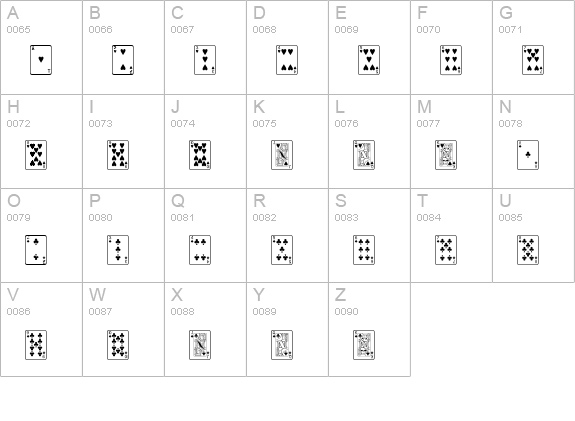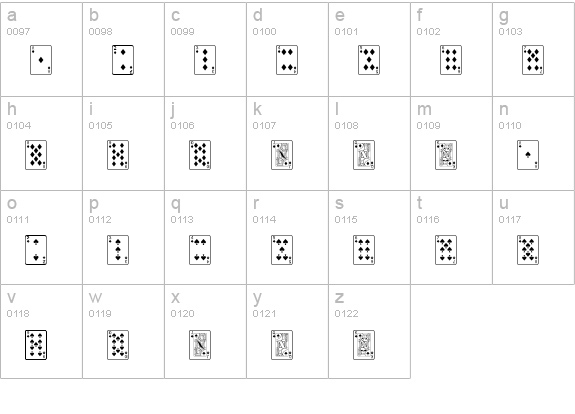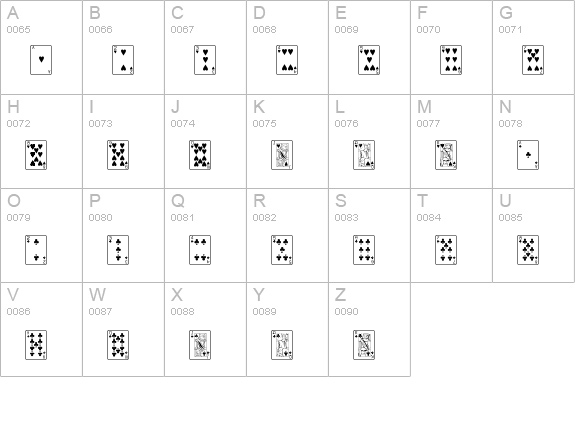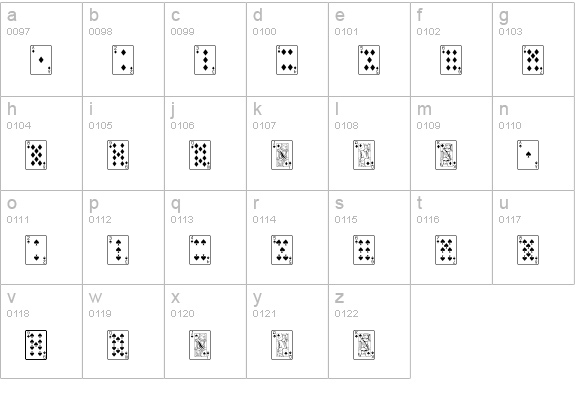
Playing Cards Font Details
The Playing Cards font is a unique and playful typeface that captures the essence of classic card games. Its charming design features intricate details resembling traditional playing cards, making it perfect for adding a fun and whimsical touch to your projects. This font is not only visually striking but also versatile, suitable for a wide range of design applications including branding, invitations, posters, and more. Its bold yet elegant look will surely make your text stand out and leave a lasting impression on your audience. Best of all, the Playing Cards font is available for free download at FontsMarket.com. So go ahead and bring a touch of fun and nostalgia to your designs with this delightful font today!